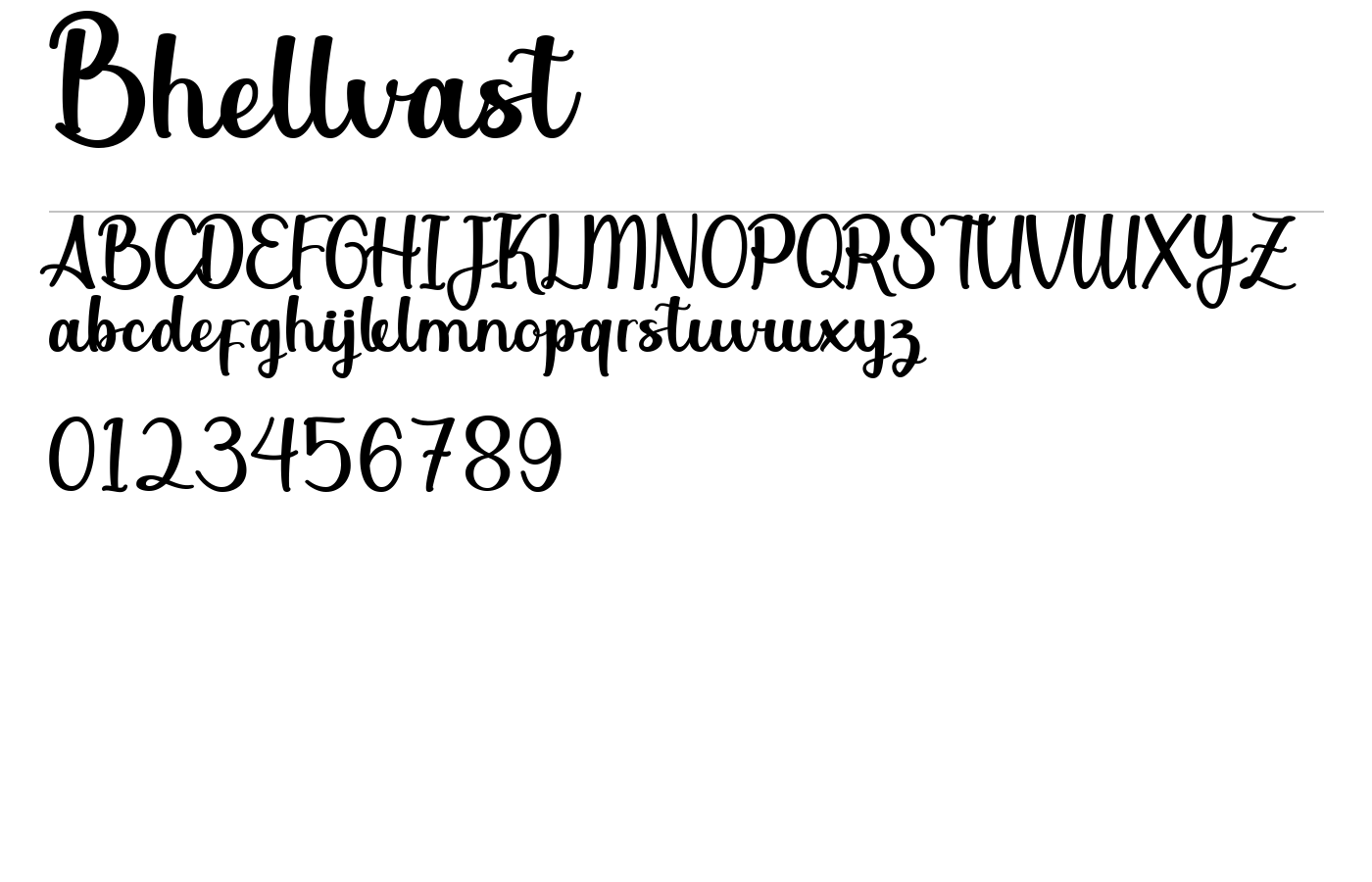
Bhellvast is a playful and elegant script font with a hand-lettered feel, featuring smooth, rounded strokes and moderate contrast that create a friendly yet refined look. Its upright, slightly condensed letterforms and distinctive loops make it ideal for creative branding, invitations, and packaging where a personal, approachable touch is desired. This font works well for headlines and display use, adding charm and warmth to any design.
Bhellvast Font
About Bhellvast Font